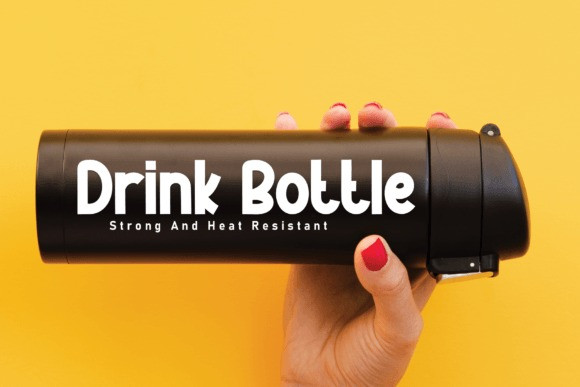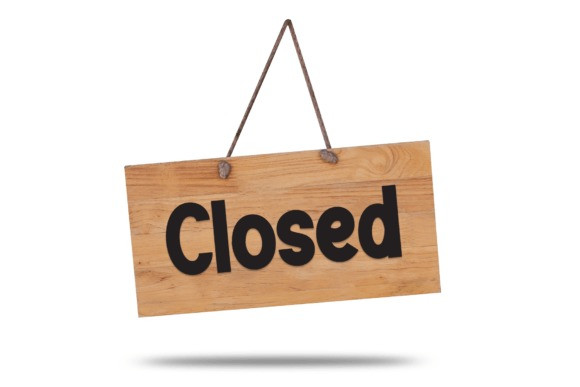
Jovial Mood Font
Jovial Mood Font is an enchanting handwritten font. This versatile script font has a wide spectrum of applications ranging from greeting cards to headlines and is guaranteed to add a romantic feel to your next project.